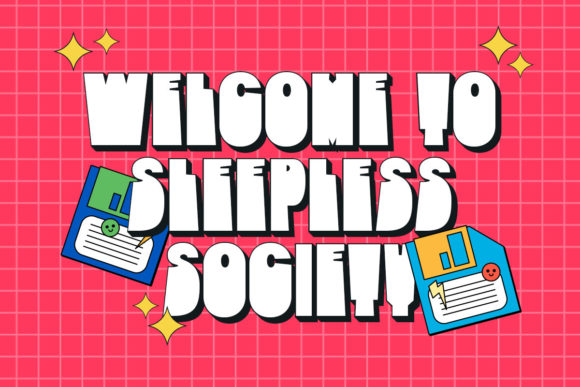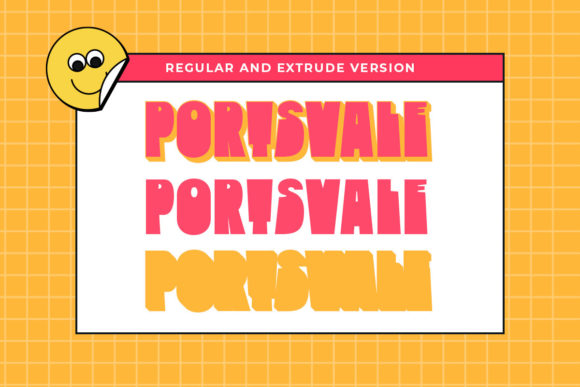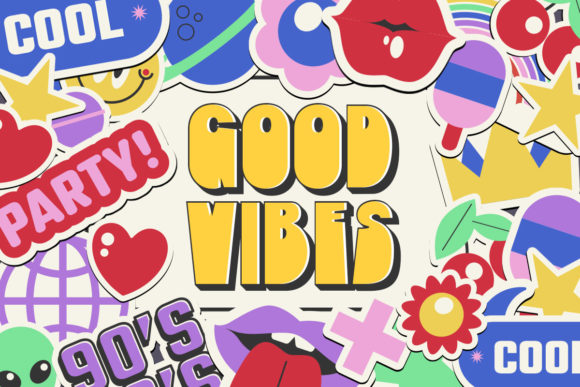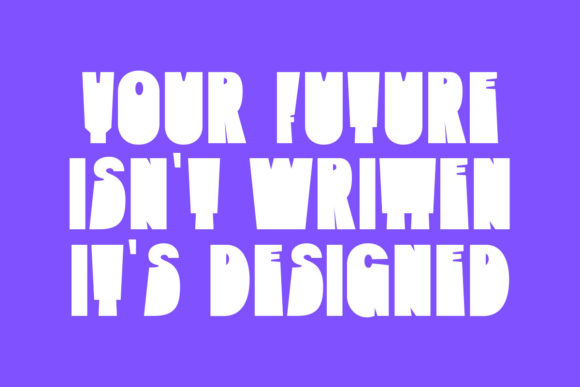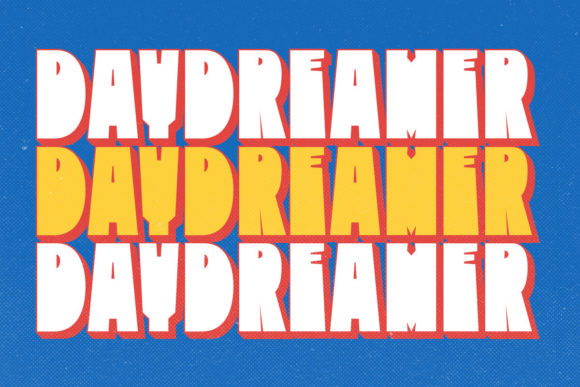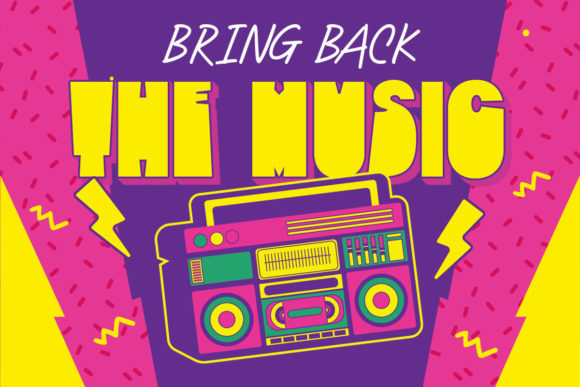
The Retro Revival: A Deep Dive into Fintbar Font
I’ll never forget the design project that led me to discover Fintbar Font. I was working on a retro-themed poster for a client’s 70th birthday party, and I was struggling to find the perfect font to capture the essence of the decade. That’s when I stumbled upon Fintbar, a bold, thick-lettered, and retro-styled display font that instantly transported me back to the 1970s.
An Honest Review of Fintbar Font
- 💥 Instant retro vibe: Fintbar Font is perfect for designs that require a bold, nostalgic feel.
- ✅ Highly versatile: This font can be used for a wide range of projects, from posters and flyers to social media graphics and craft projects.
- 🔥 Thick and bold: The font’s thick letters make it perfect for headlines, titles, and emphasis.
- 👍 Easy to read: Despite its boldness, Fintbar Font is surprisingly easy to read, even at smaller sizes.
- ⚠️ Limited use for body text: Fintbar Font is a display font, and its boldness can be overwhelming for longer blocks of text.
- ⚠️ Not suitable for small sizes: While it’s easy to read, Fintbar Font can become blurry or pixelated at very small sizes.
The Designer Inspiration Behind Fintbar Font
Fintbar Font was designed with the 1970s in mind. The font’s creator drew inspiration from classic retro designs, such as vintage posters, vinyl records, and retro advertisements. The result is a font that’s both nostalgic and modern, perfect for designers who want to add a touch of retro flair to their work.
| What is Fintbar Font best used for? | Fintbar Font is best used for display purposes, such as headlines, titles, and emphasis. |
| Is Fintbar Font suitable for body text? | No, Fintbar Font is not suitable for body text due to its boldness and limited readability at smaller sizes. |